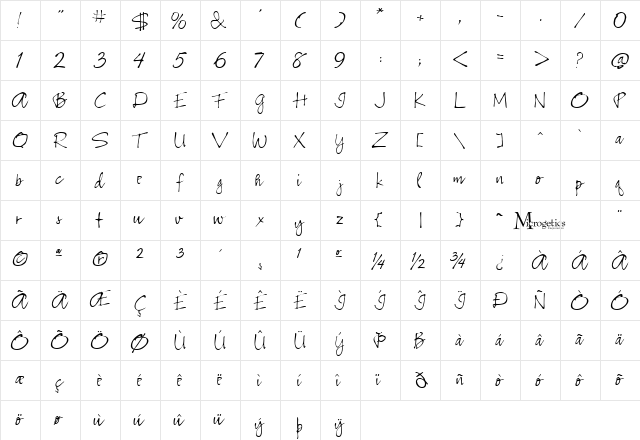
MC CEO Regular
Design Context for MC CEO Typeface
MC CEO is a composed and adaptable typeface that performs quietly and consistently across a wide range of design contexts.